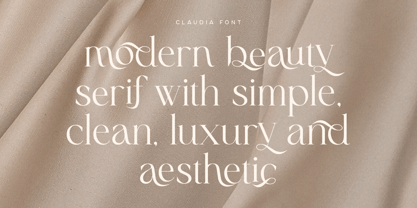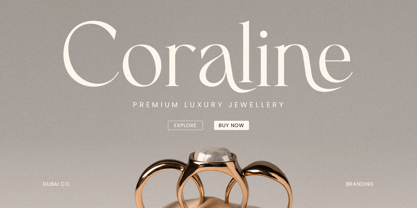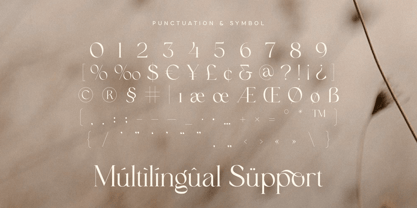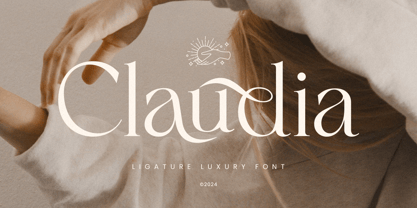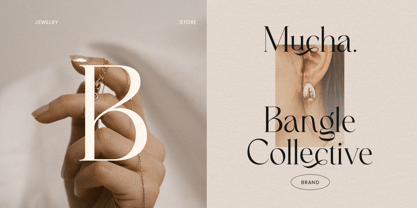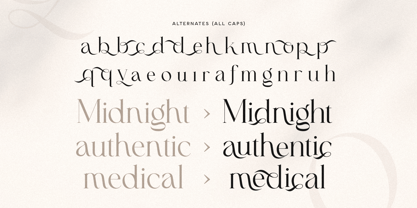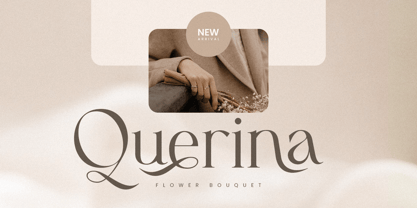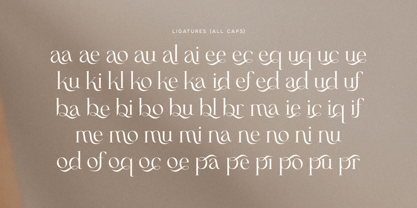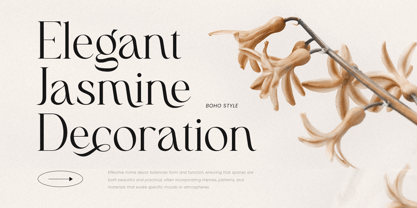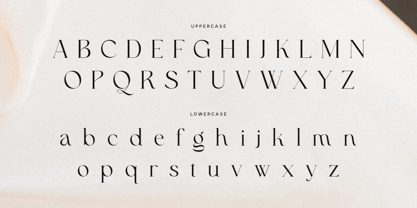
Claudia
von Sensatype Studio
Die Schriftfamilie Claudia wurde von Zamroni Hamzah entworfen und von Sensatype Studio veröffentlicht. Claudia enthält 1 Stile.
Claudia is a luxurious ligature font crafted to bring a touch of elegance and sophistication to your design projects. Each character is designed with meticulous attention to detail, making Claudia perfect for high-end branding, packaging, and editorial works. Its unique ligature characters set it apart, adding a distinctive flair to any design.
The journey of Claudia began with a vision to create a typeface that combines luxury and uniqueness. Inspired by classic elegance, Claudia’s design features smooth curves and intricate details. This font is ideal for designers who want to make a bold statement, whether it’s for logos, invitations, or digital content. Claudia’s luxurious feel and unique ligatures make it versatile for various design needs.
Claudia comes with a comprehensive set of features to support your creative projects. It includes ligature characters, punctuation, numbers, and symbols, ensuring versatility and compatibility across different platforms and software. With multilingual support and opentype features, Claudia meets the needs of designers worldwide.
Claudia Ligature Luxury Font Features:
• Ligature Characters Ready
• Punctuation, Number, and Symbol
• Uppercase and Lowercase
• Multilingual Support
• Opentype Features
Designer: Zamroni Hamzah
Herausgeber: Sensatype Studio
Foundry: Sensatype Studio